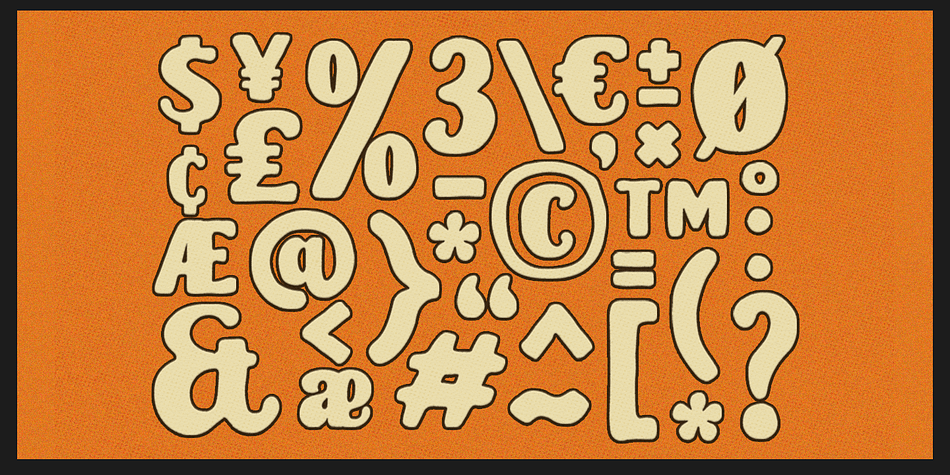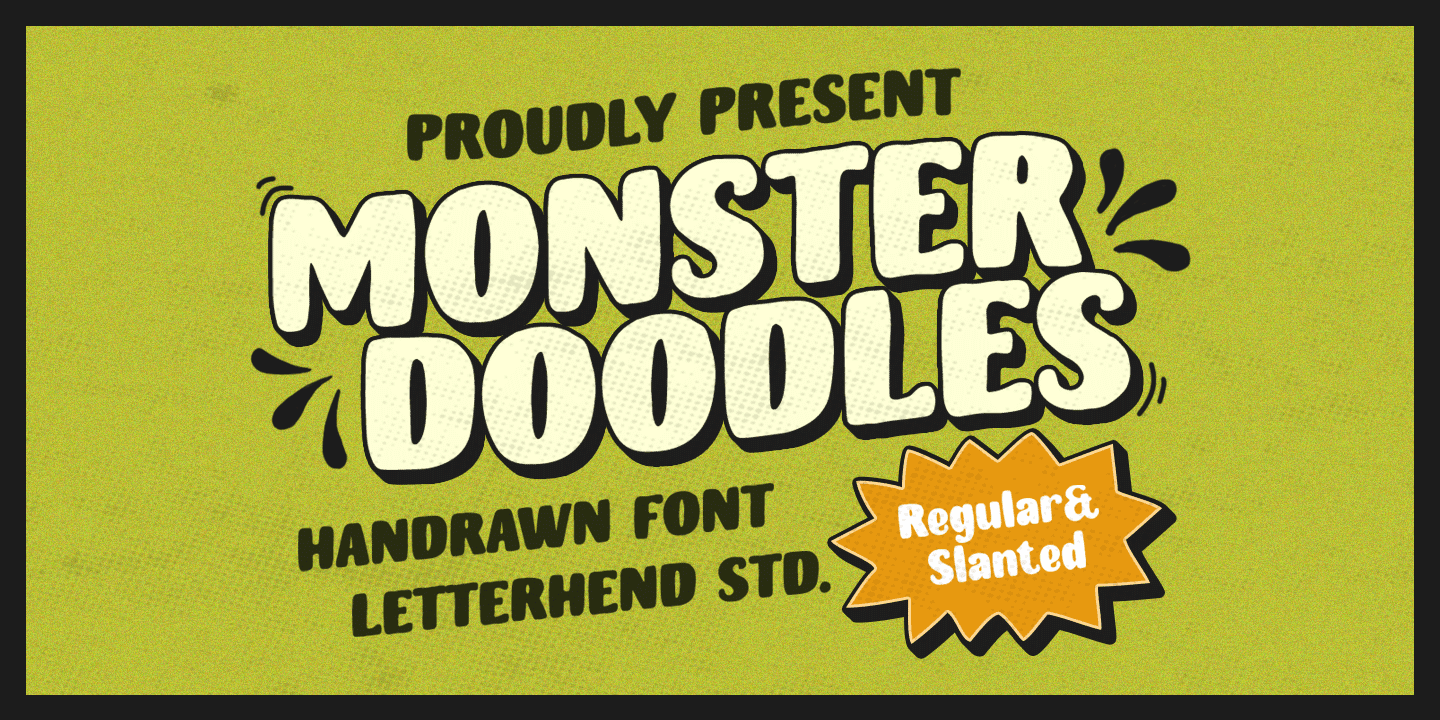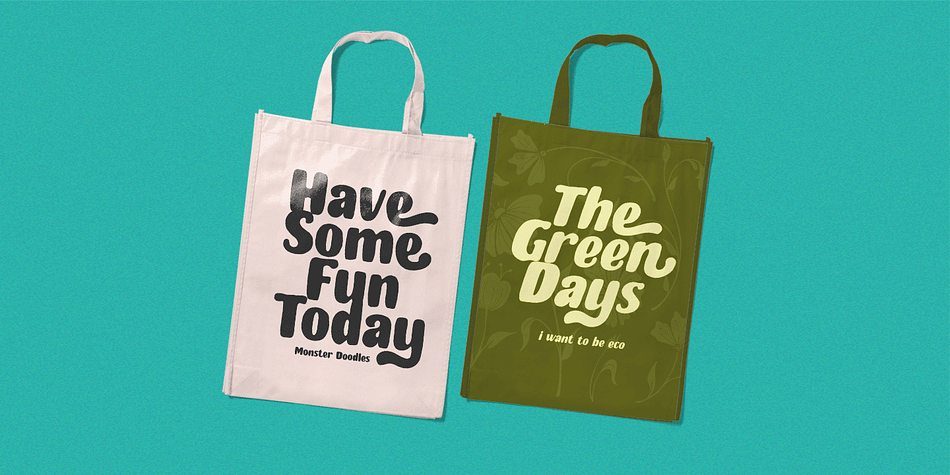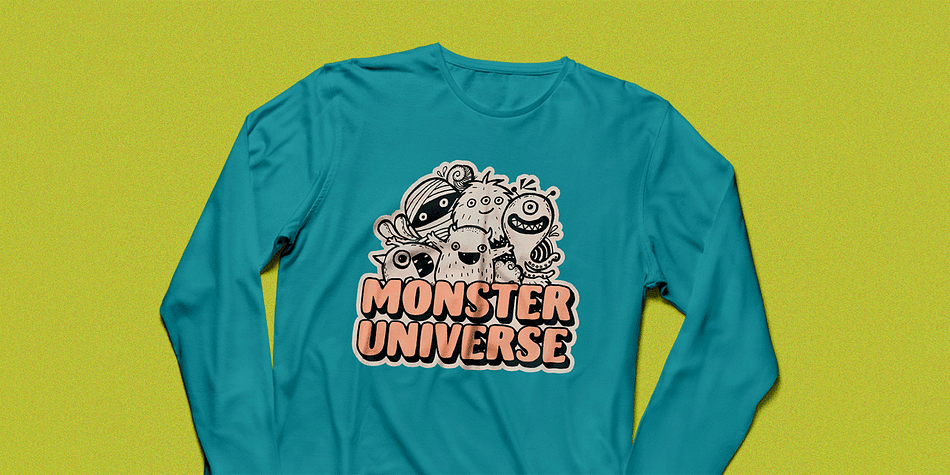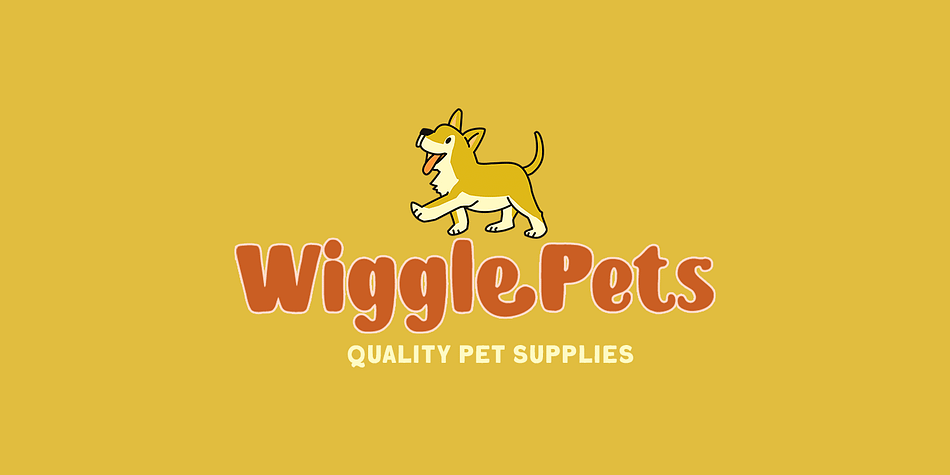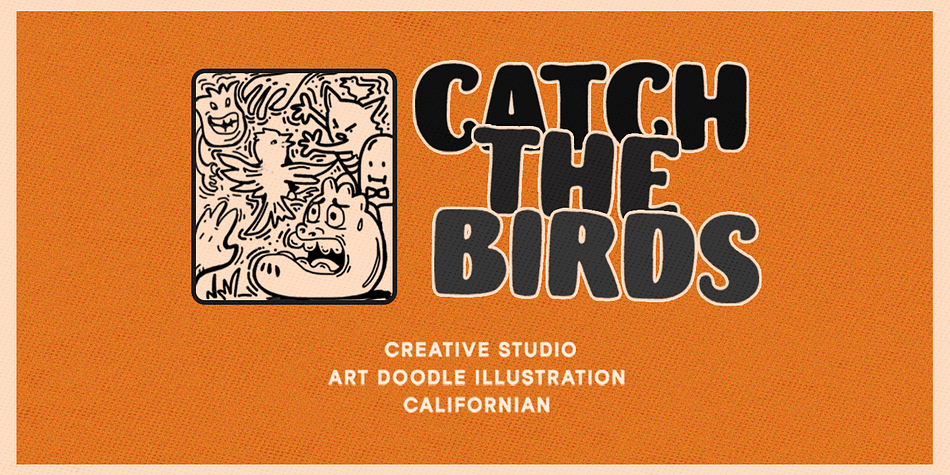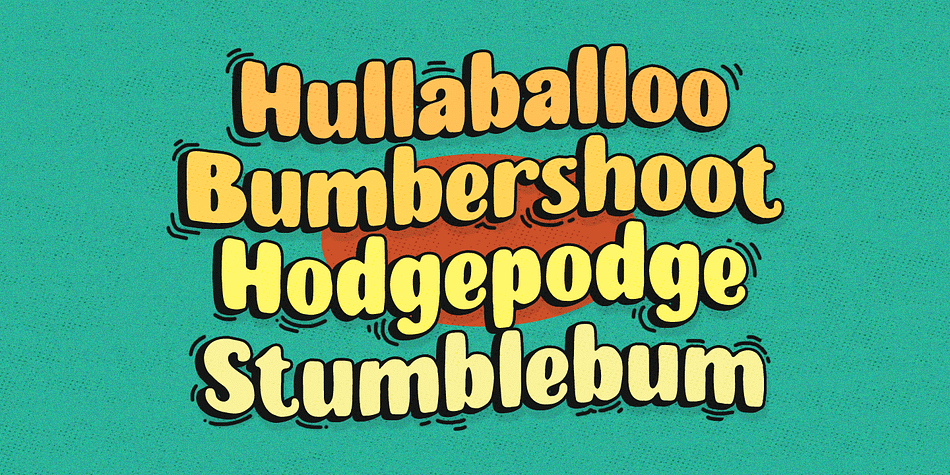
Monster Doodles
Designed by Hendry Juanda, Monster Doodles is a display sans, hand drawn and retro font family. This typeface has two styles and was published by Letterhend Studio.
Monster Doodles is a hand drawn font with bold letterform. You can playaround to fit the form using uppercase and lowercase mode. This font perfectly made to be applied especially in logo, and the other various formal forms such as invitations, labels, logos, magazines, books, greeting / wedding cards, packaging, fashion, make up, stationery, novels, labels or any type of advertising purpose.
- Alternates & Ligatures